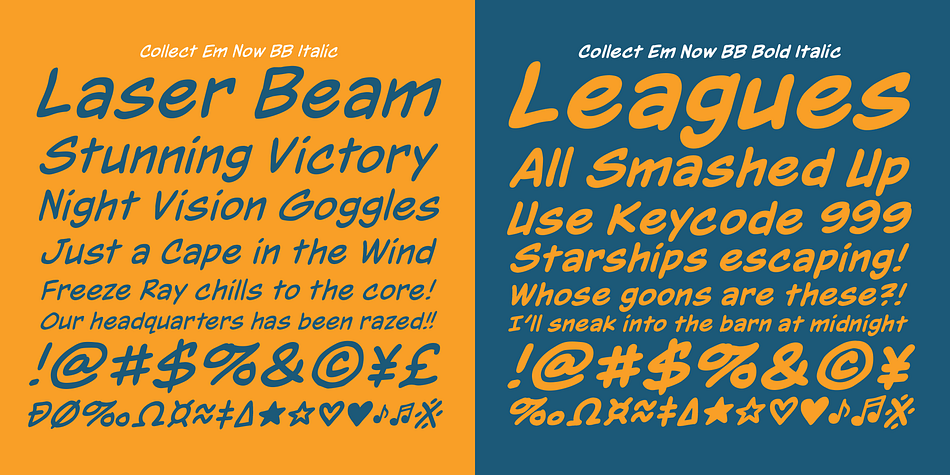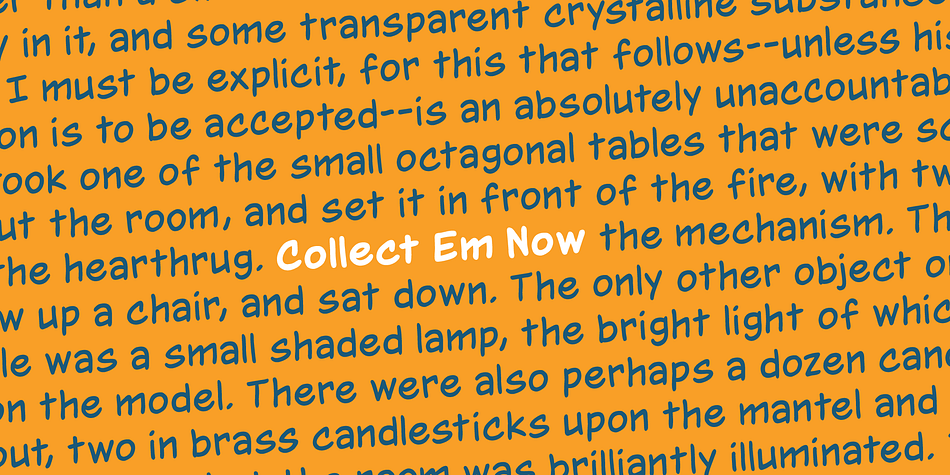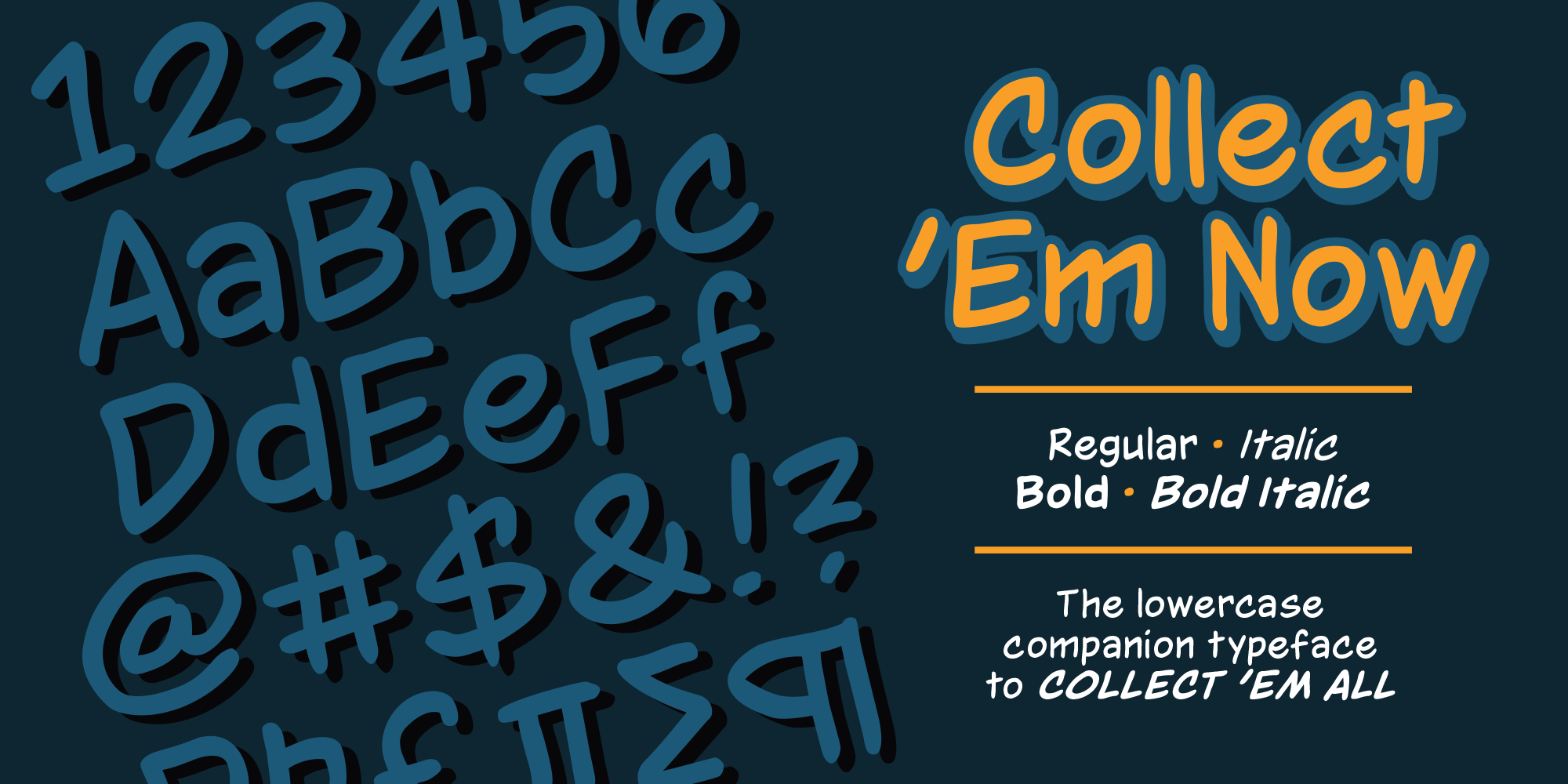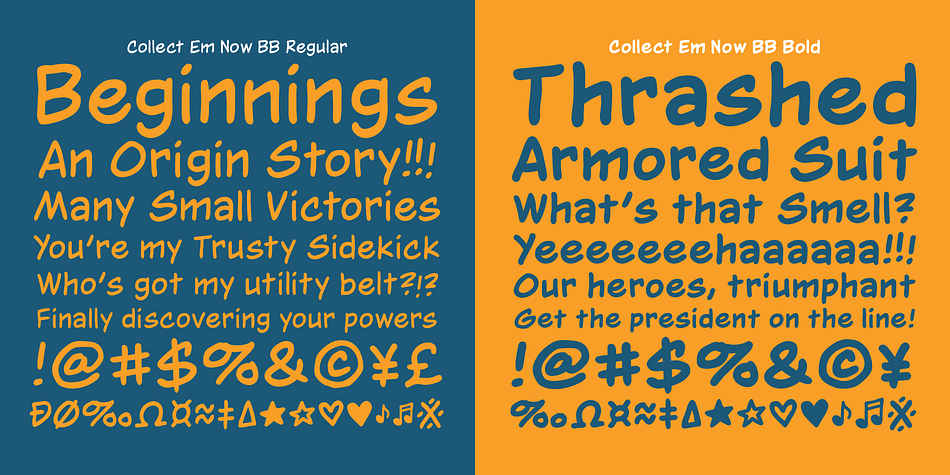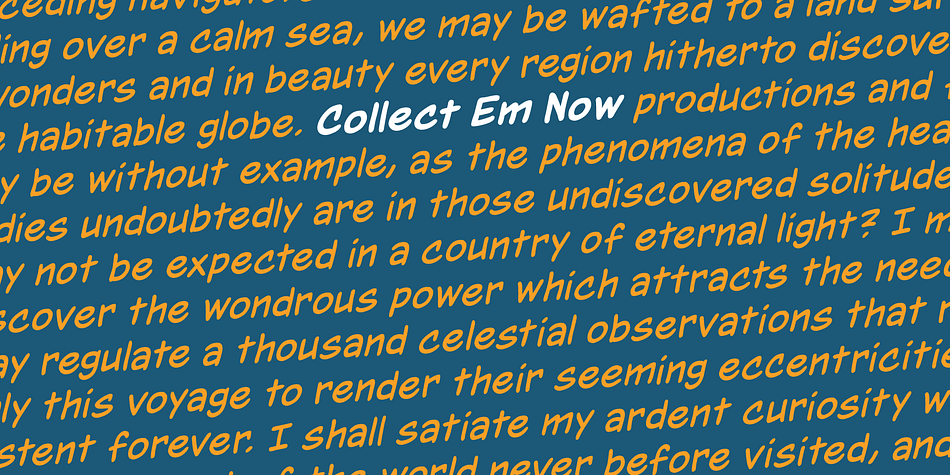
Collect Em Now BB
Designed by Nate Piekos, Collect Em Now BB is a comic font family. This typeface has four styles and was published by Blambot.
Collect Em Now BB is the sentence-case companion typeface to the uppercase Collect Em All BB! It includes four fonts: regular, italic, bold and bold italic, double letter opentype ligatures, contextual alternate barred-I correction, manga glyphs, and more!
Foundry Blambot
Style Comic
Designer Nate Piekos